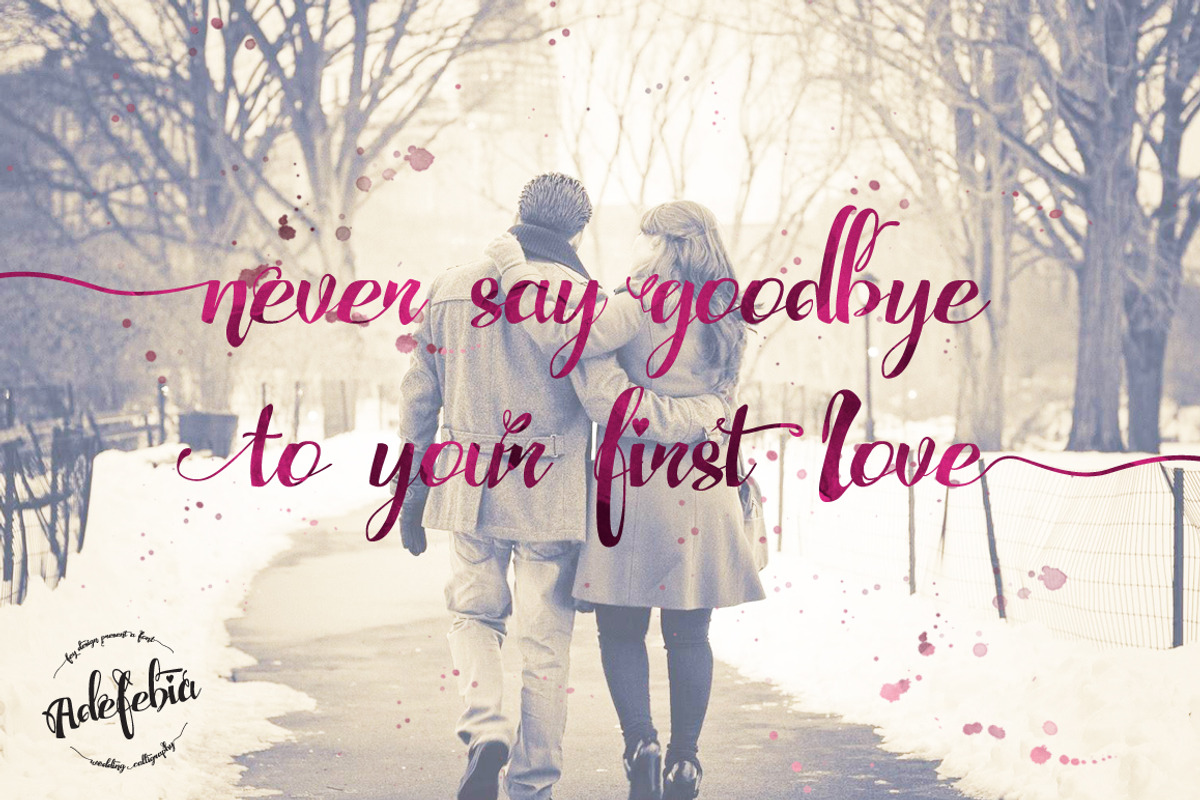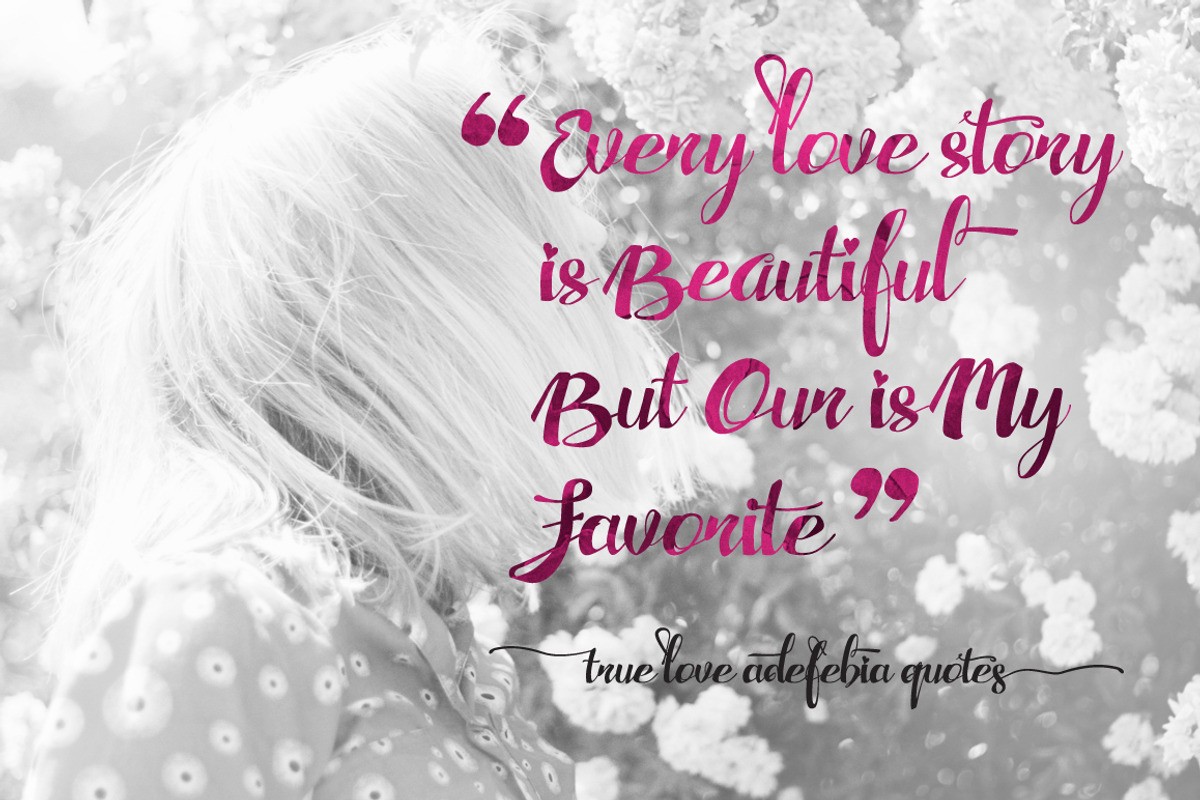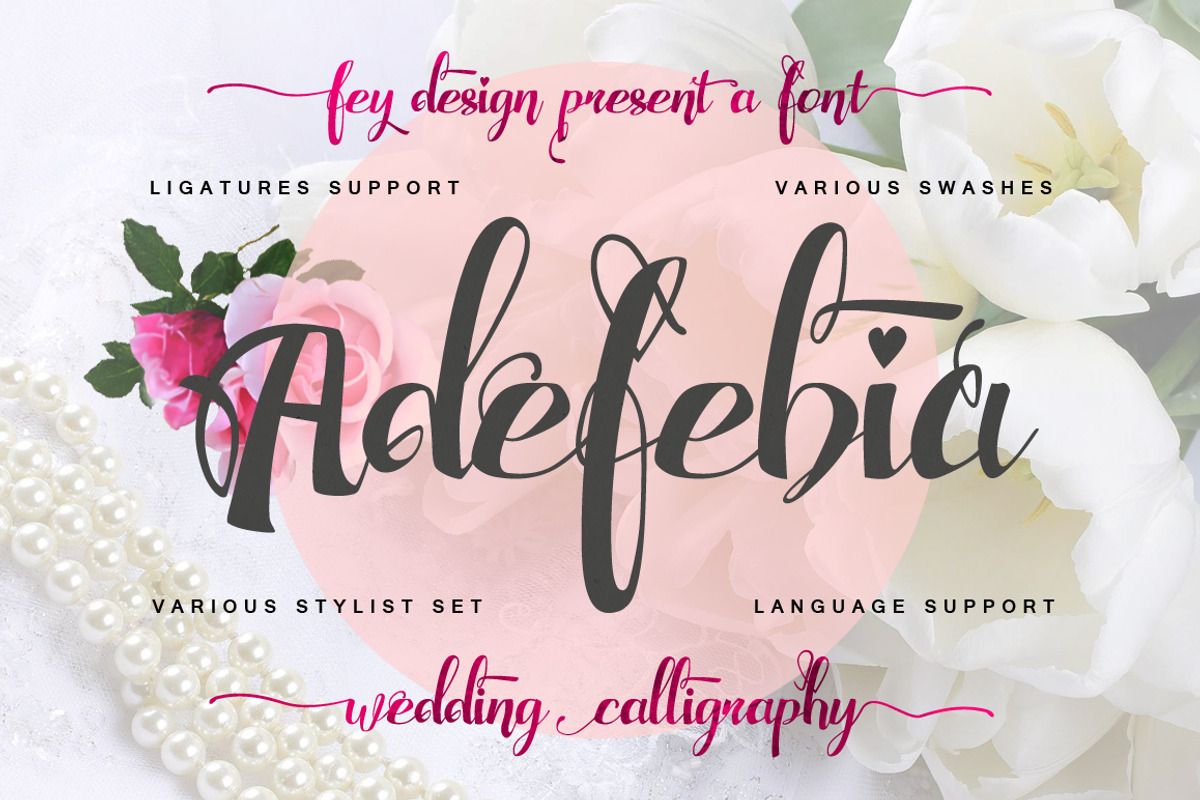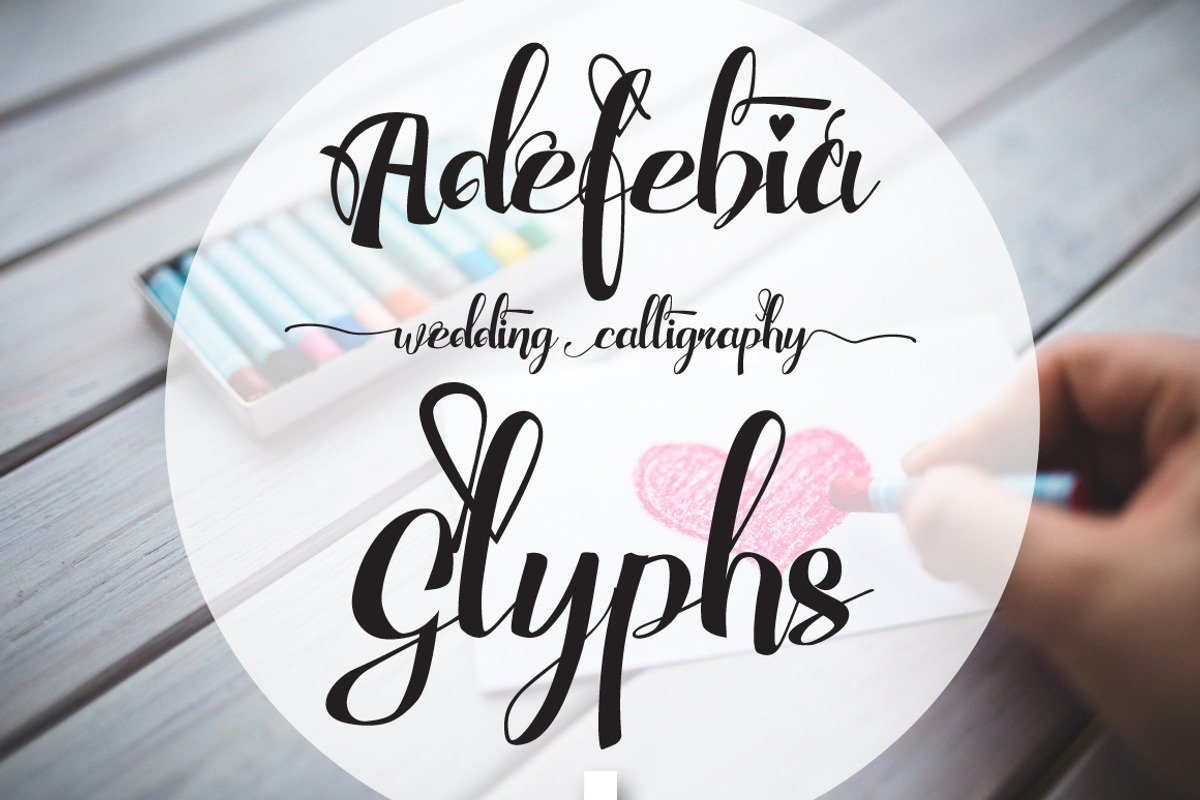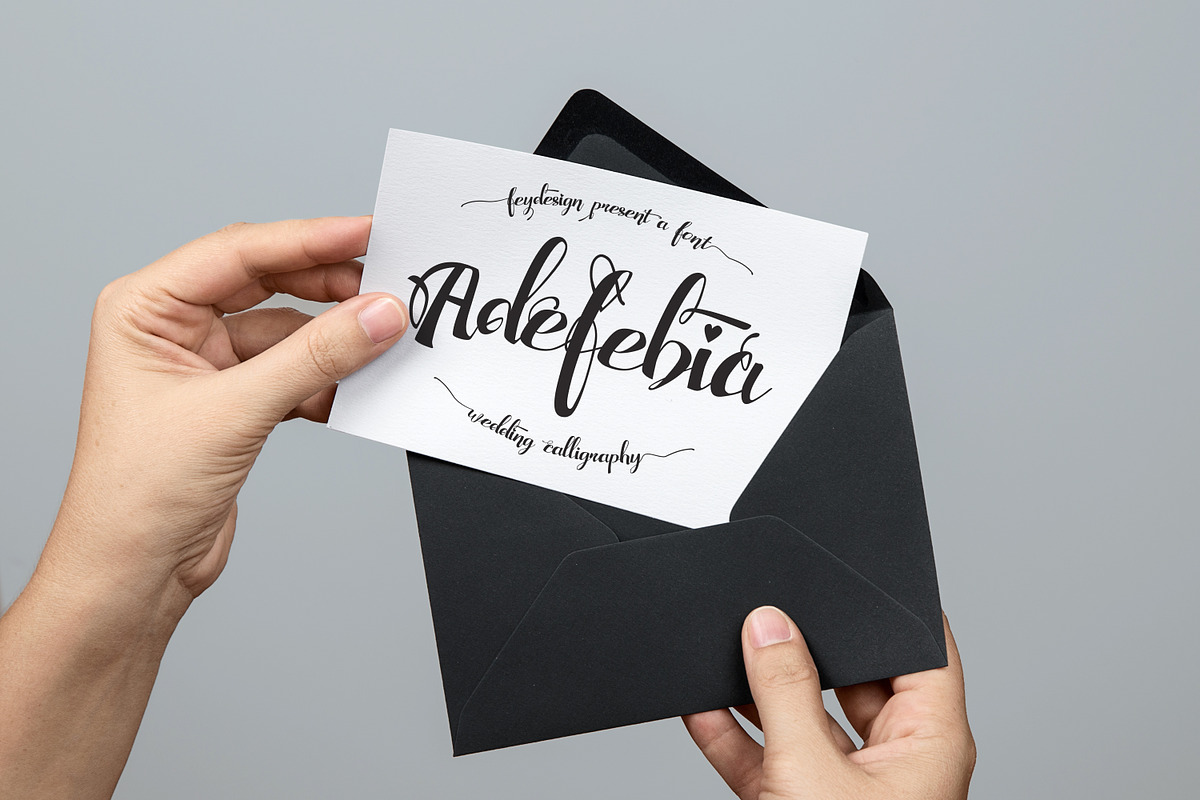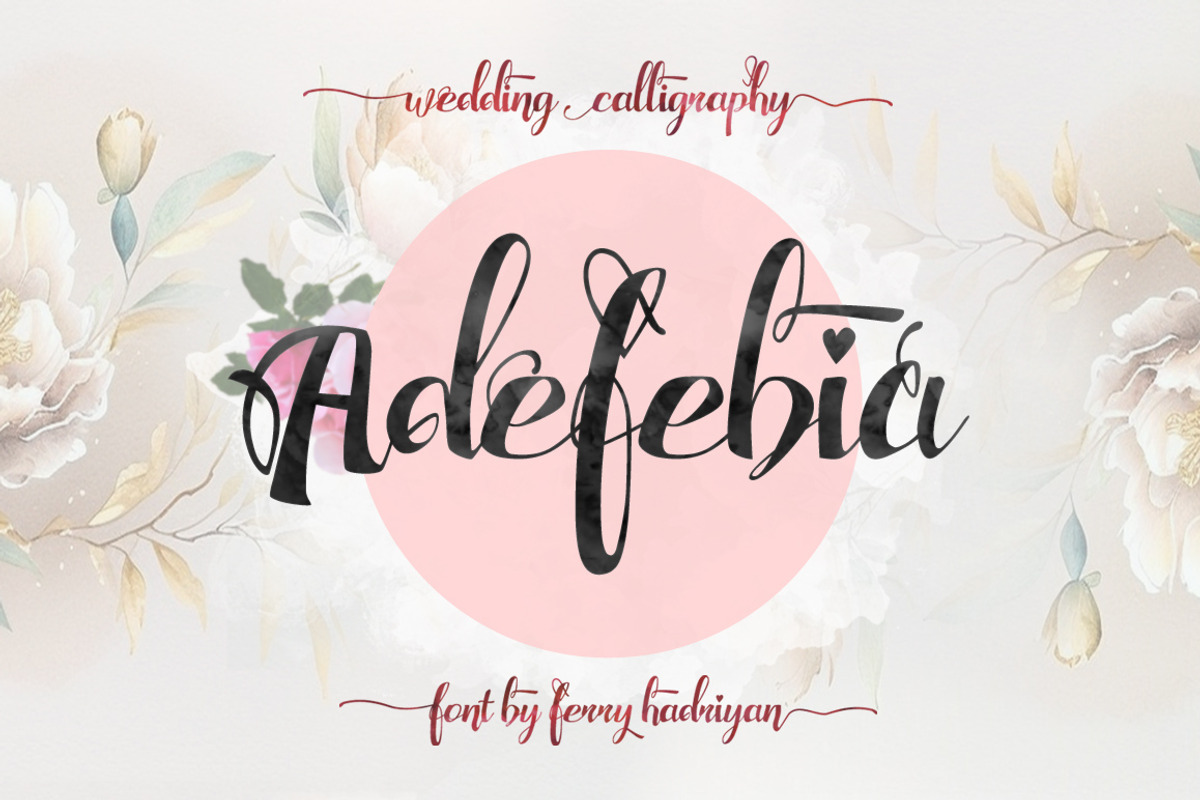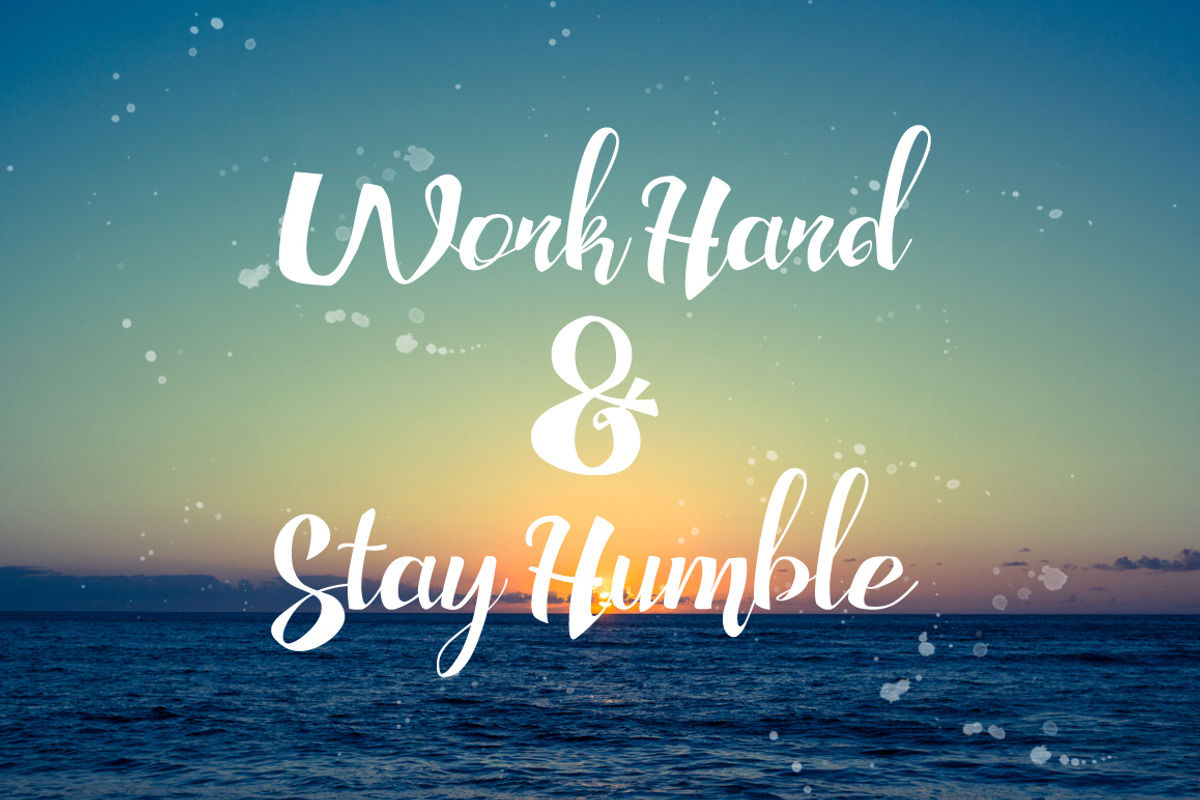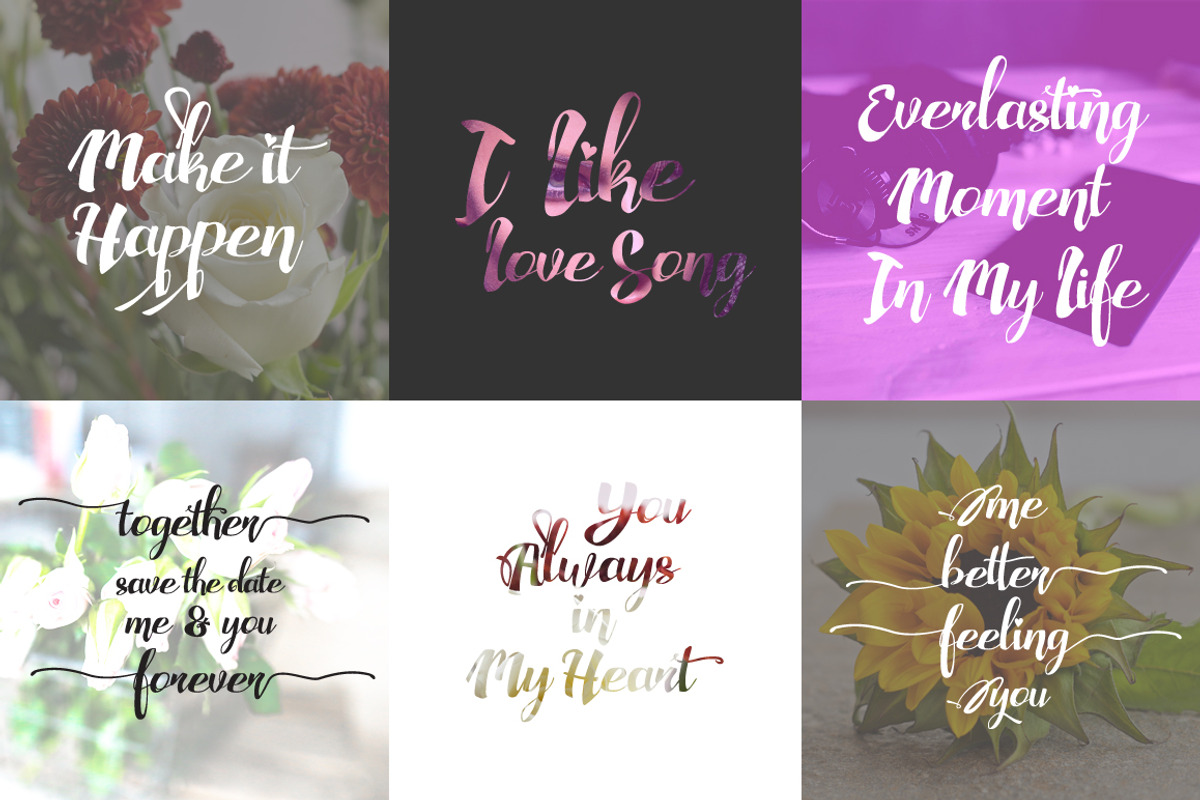
Adefebia Wedding Script Font
Adefebia Wedding Script Font by FHFont is a font selected for branding, posters, packaging, typography.
Why Adefebia Wedding Script Font is worth a look
Adefebia Wedding Script Font by FHFont fits naturally into Branding, posters, packaging, typography.